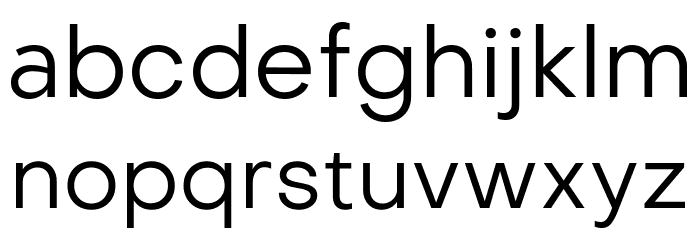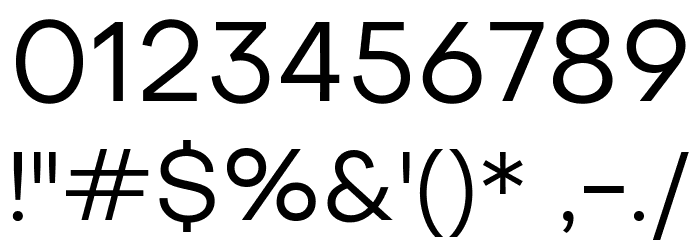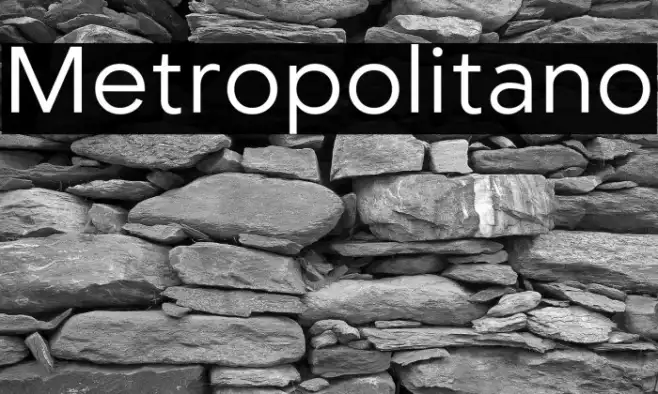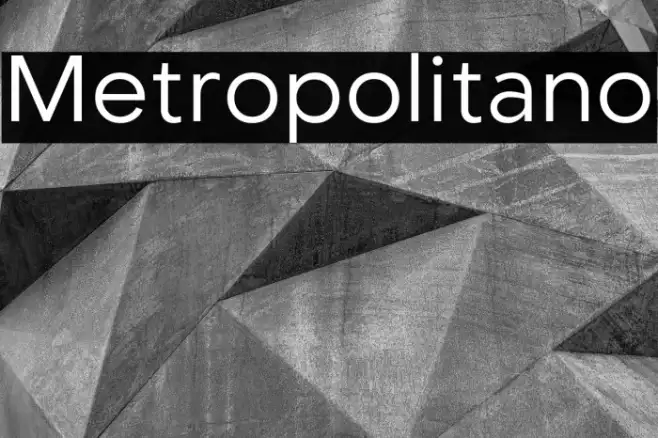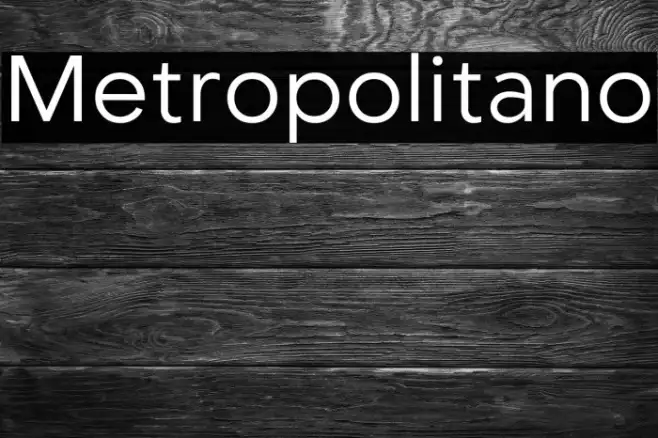
Metropolitano Font
This font features a clean and modern sans-serif style with uniform stroke widths, providing a sleek and contemporary appearance. The characters are well-proportioned with a balanced height and width, offering excellent readability. The uppercase letters are bold and assertive, while the lowercase letters maintain a friendly and approachable feel. The numerals are clear and distinct, ensuring easy recognition. Special characters are designed to complement the overall aesthetic, making this font versatile for various applications.
A modern sans-serif font with clean lines and excellent readability.
- Proposed Projects: Ideal for branding, web design, advertising, and editorial projects where clarity and modernity are essential.